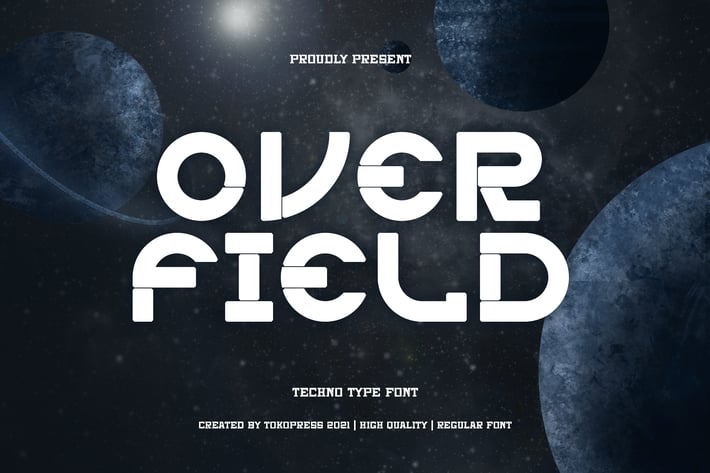
Overfield - Futuristic gaming font
Overfield - Future Techno Font
Overfield is a futuristic display typeface that blends circular geometry with sharp, calculated proportions—crafted for modern UI, VR experiences, and sci-fi visuals. With low-contrast strokes, rounded edges, and a bold, space-age vibe, this typeface echoes retro-futurism while staying grounded in clean, digital precision.
Designed with strong visual gravity and sci-fi resonance, Overfield’s structure creates a dynamic rhythm perfect for digital landscapes. Whether it's a game logo, tech product promo, or experimental music layout, this font captures bold expression with polished readability.
Overfield thrives in high-tech environments—from gaming dashboards and web3 platforms to interstellar posters and VR product demos. Designers looking to create atmosphere and narrative in digital-first branding will find Overfield a powerful ally. It resonates with forward-looking brands and interfaces where futuristic clarity matters.
Its rounded terminals soften the overall look without sacrificing punch, making it perfect for both high-energy eSports promos and chill electronic music cover art.
Key Features
Overfield Elevates Your Digital World With:
- Bold futuristic shapes and sci-fi personality
- Rounded terminals paired with geometric balance
- Easily readable in both motion and static formats
- Retro-inspired but refreshingly modern display vibe
Ideal for:
- Gaming UIs, VR/AR dashboards
- Album covers and music tech branding
- Space exploration posters or digital invitations
- NFT projects, future tech startups, app branding